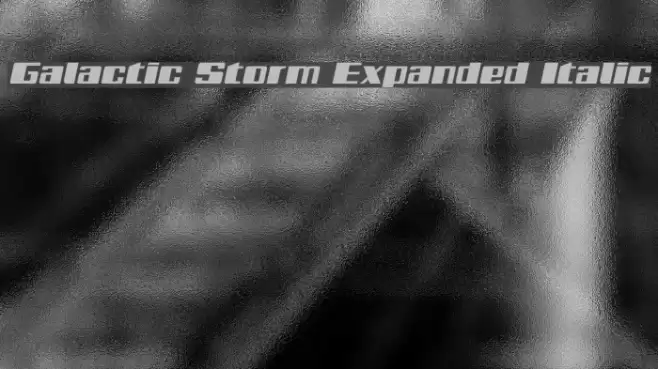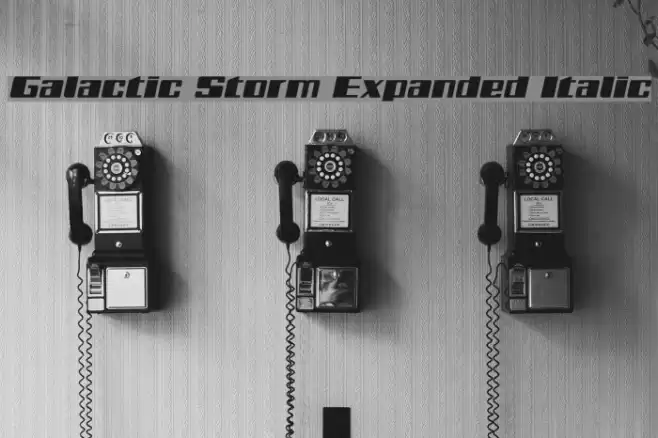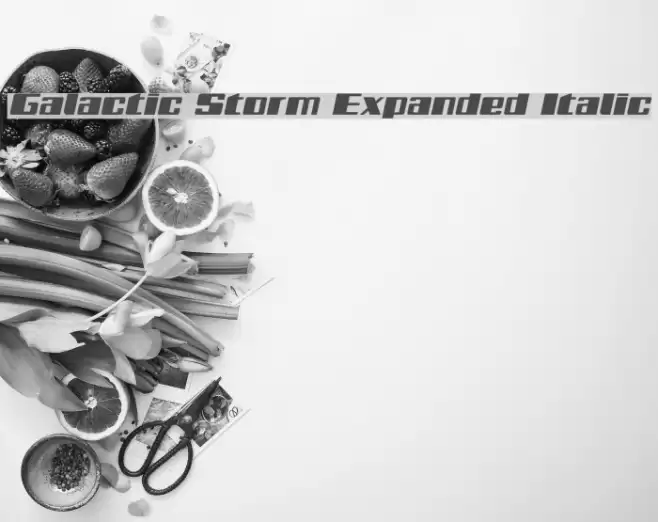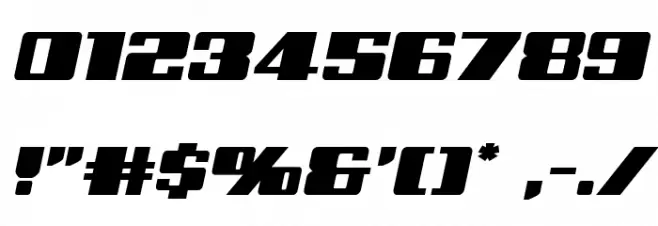
Galactic Storm Expanded Italic Font
Galactic Storm Expanded Italic Description
This font features a bold and dynamic style with an italic slant, giving it a sense of motion and energy. The characters are expanded, providing a wide and impactful appearance. The design includes sharp angles and clean lines, creating a futuristic and modern aesthetic. The uppercase and lowercase letters maintain a consistent style, with the lowercase offering a slightly more compact form. Numbers and special characters are designed to match the overall bold and expansive look, ensuring uniformity across all text. This font is ideal for projects that require a strong and eye-catching display.
- Proposed Projects: Perfect for sci-fi themed posters, video game titles, and dynamic branding projects.